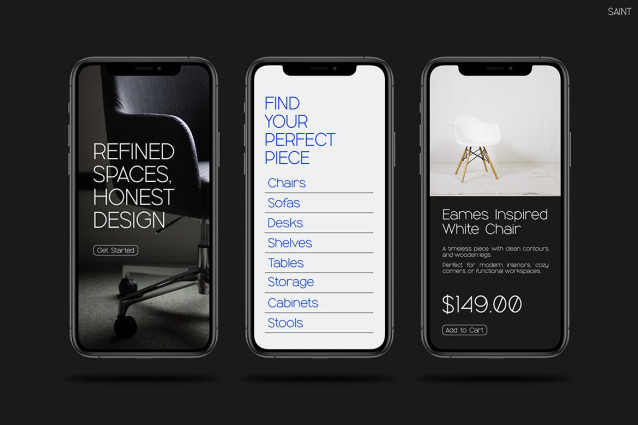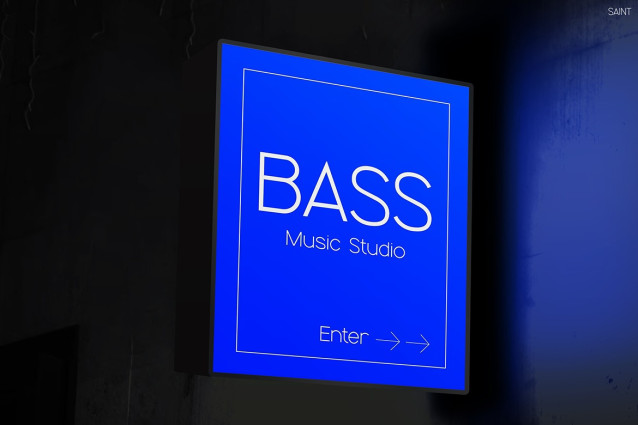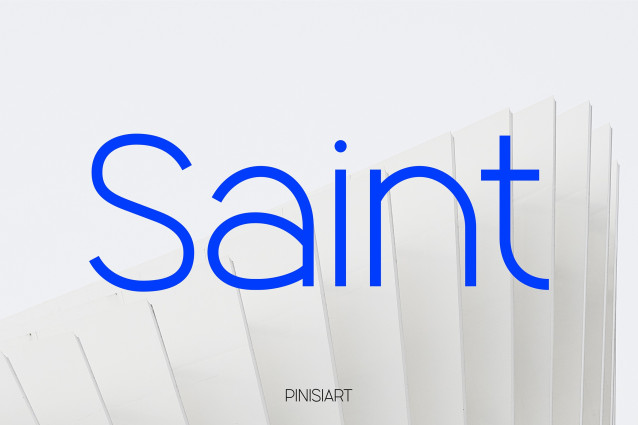
Saint Font
Saint Font – Brings a crisp, modern feel to any visual content. With geometric precision and balanced structure, this typeface helps you create clean, high-impact designs that feel professional and fresh. Each letterform reflects its intent—curved where it should be gentle, angular where it should be pointed. The result is a harmonious blend of simplicity and confidence that works seamlessly across digital and print media.
Unlike many minimalist fonts that lack personality, Saint infuses character into clarity. This font stands out for its extremely consistent weights and excellent readability, making it ideal for both headlines and body copy. You can recognize its visual rhythm in tech branding, product presentations, music event posters, and digital ads—where clarity is key but style matters. This font doesn’t just convey information; It grabs attention when it comes to information.
Saint works great on screen, in apps, websites, and social media. The dynamic letterforms of this font ensure readability at both small and large sizes. Use this font for moody branding or minimalist campaigns where every design element needs to stand out. Whether it’s a fashion launch or a software launch, Saint will give your project a distinct voice.